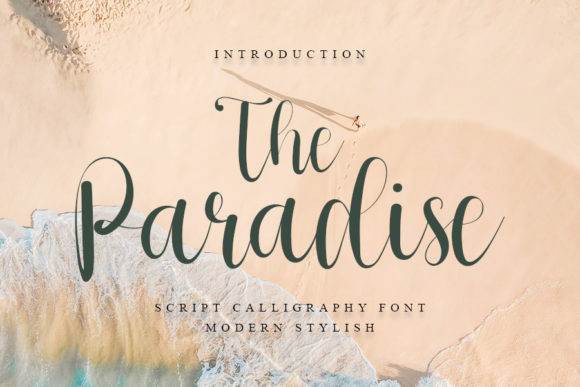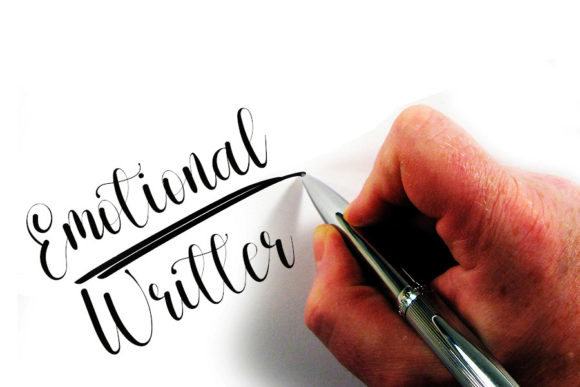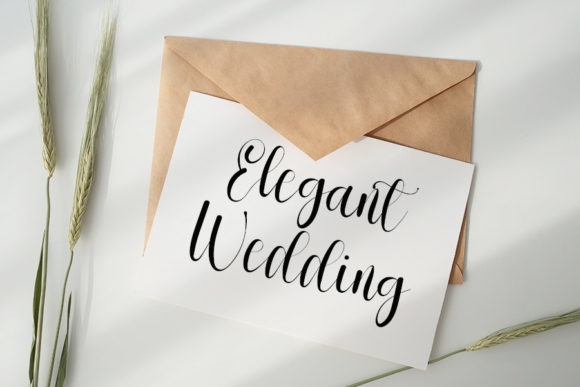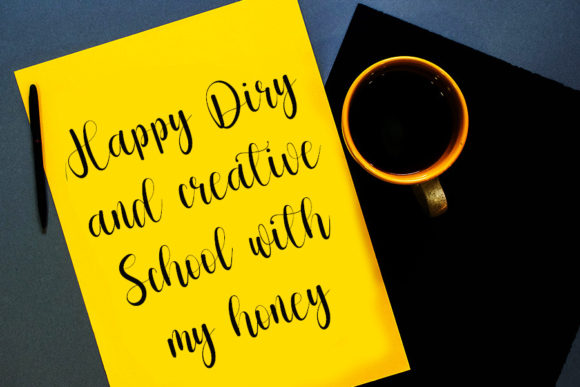
About The Paradise Font
The Paradise is a beautiful and well-rounded handwritten font. It has a modern look that makes it perfect for branding, invitations, stationery, wedding designs, social media posts, and much more!